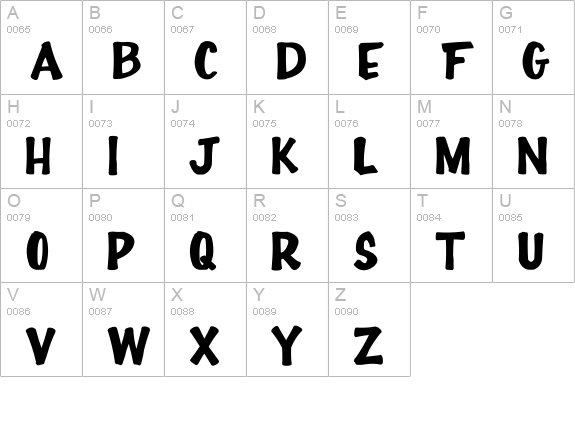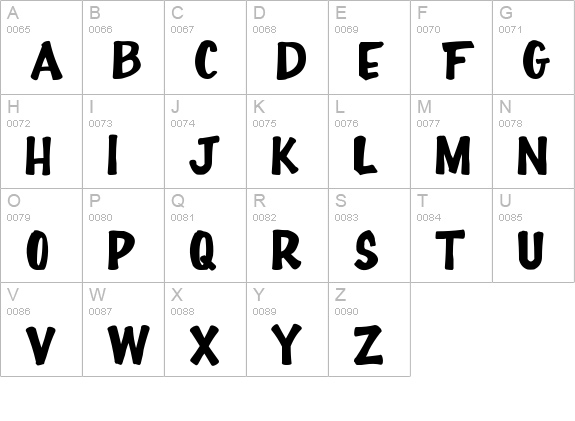
Full-House20 Font Details
Full-House20 font is a bold and eye-catching typeface that exudes strength and confidence. With its clean lines and modern design, this font is perfect for making a bold statement in your designs. Whether you're creating a poster, logo, or website, Full-House20 font will help your message stand out from the crowd. The best part is that Full-House20 font is completely free to download at FontsMarket.com. You can easily add this versatile font to your collection without breaking the bank. Don't miss out on the opportunity to enhance your designs with this striking and dynamic font. Download Full-House20 font today and let your creativity shine!